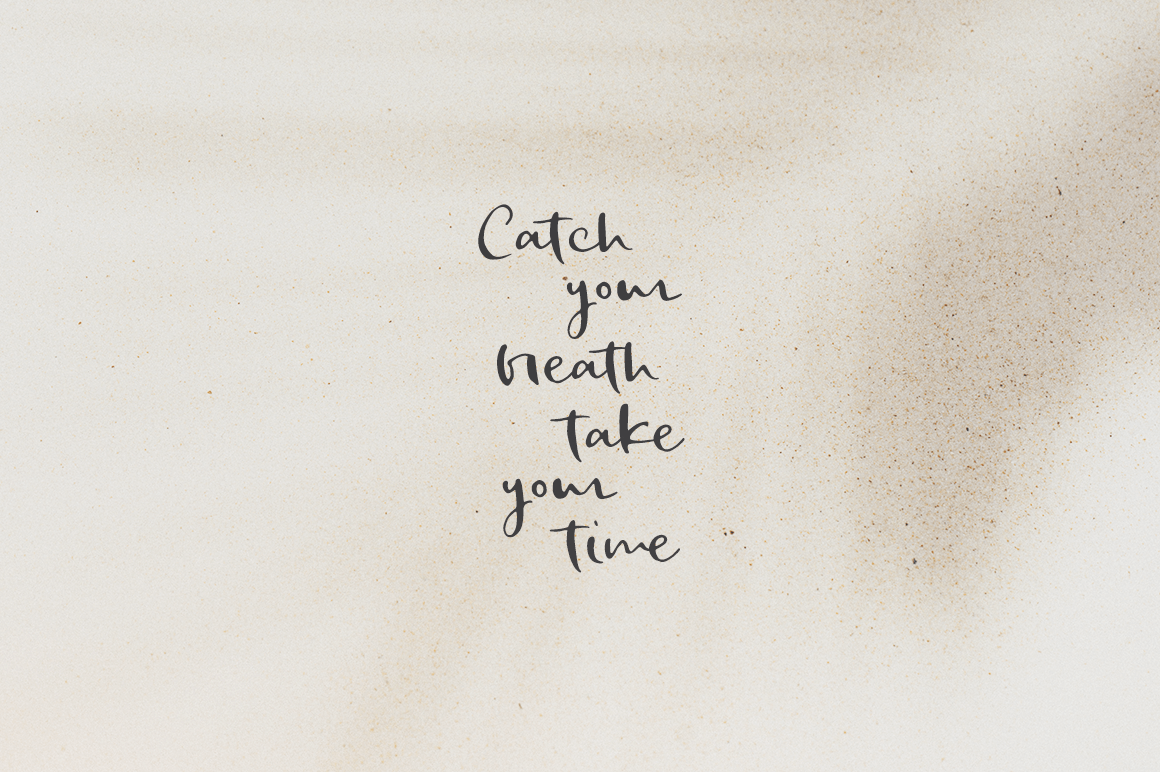
Smoke signals script font
Smoke Signals is a calligraphy font handmade using a real dip pen and ink with lots of bonus goodies.
Smoke Signals is perfect for any design that needs a vintage calligraphy look. Use it in signatures and logos, notes and quotes, social media posts, and branding and packaging.